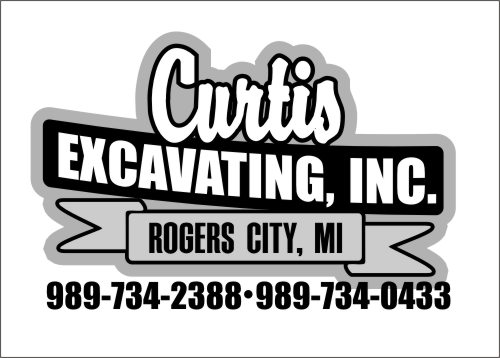
I did this earlier this year and was never quite satisfied with the way it turned out. It's on a trailer for Curtis Racing. One of the sponsors is Curtis Excavating. They had a "logo" made up years ago and wanted it as is; the same color, everything. Anyway after I did it, it just doesn't POP. Any ideas as to what I could add to help make it pop off the side? Any ideas are greatly appreciated. Thanks. [IMG]  - [/IMG]
They want it the same....!?!?
Then it is YOUR job to talk them out of it and tell them WHY! That logo is a start but if you have the inclination and the time, redesign it to something that look better. Don't GIVE it to them, charge them if they want to use it, but try to show them that it can be improved. Like Michael said, make "Curtis" bigger, try to straighten the whole thing out so that it doesn't look like it's falling over a cliff to the right, don't have two ribbons (one or the other, not both) I can see LOTS of improvements that wouldn't take hours to do and would make a world of difference. SHOW them and they will probably go with it.
The gray color is the first thing I noticed that is working against the "pop". With millions of color possibilities, it's hard to understand why they want to keep it.
In the photo you have the Curtis logo much smaller than the surrounding logos, so that is going to contribute as well.
The design itself has the problem of every text element being roughly the same size type. "Curtis" should be largest. "Excavating Inc." should take second billing, and "Rogers City, MI" smaller still. This design has the order totally opposite.
I disagree...
What do they sell? EXCAVATING
I always try to go with - WHAT, HOW, WHO.